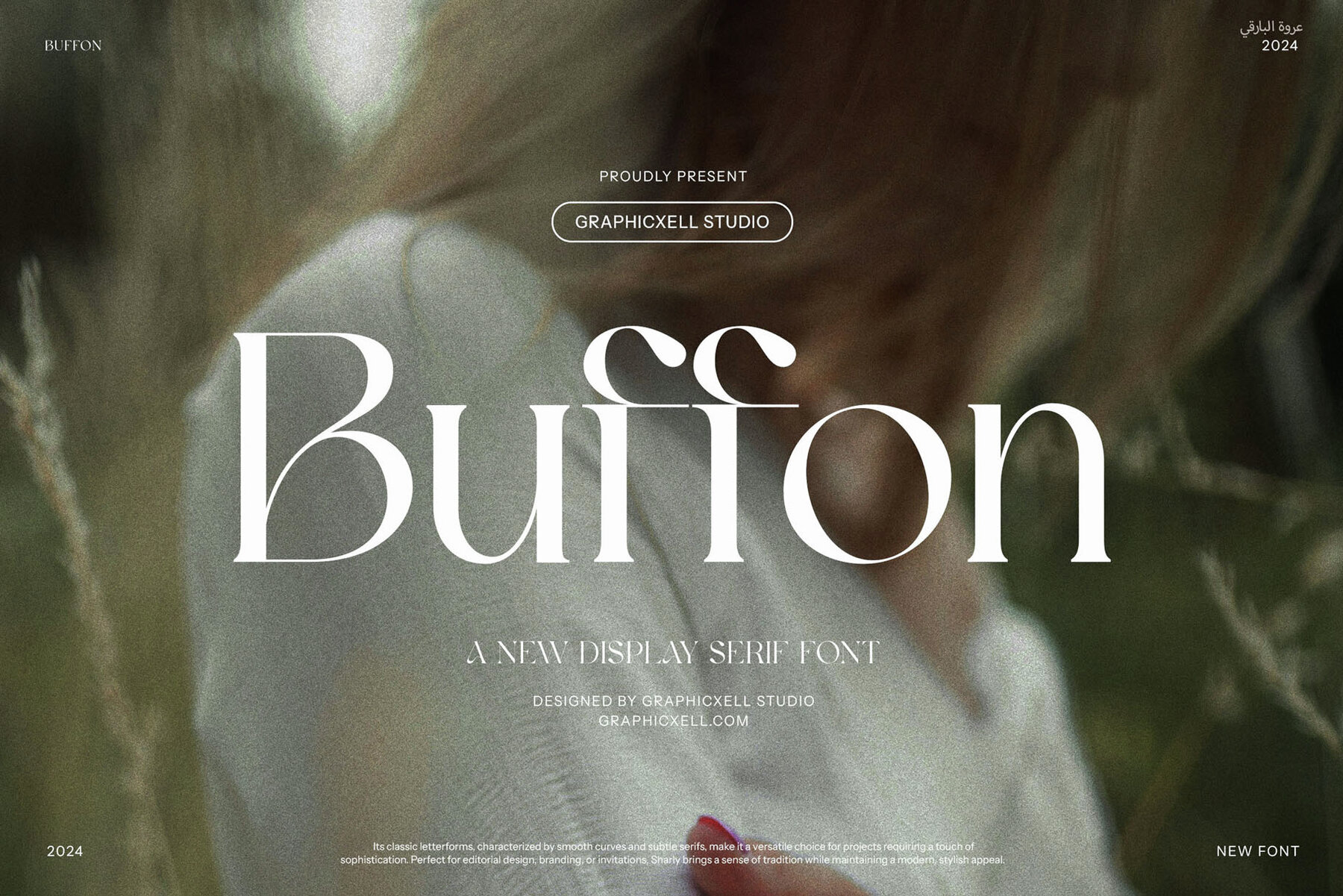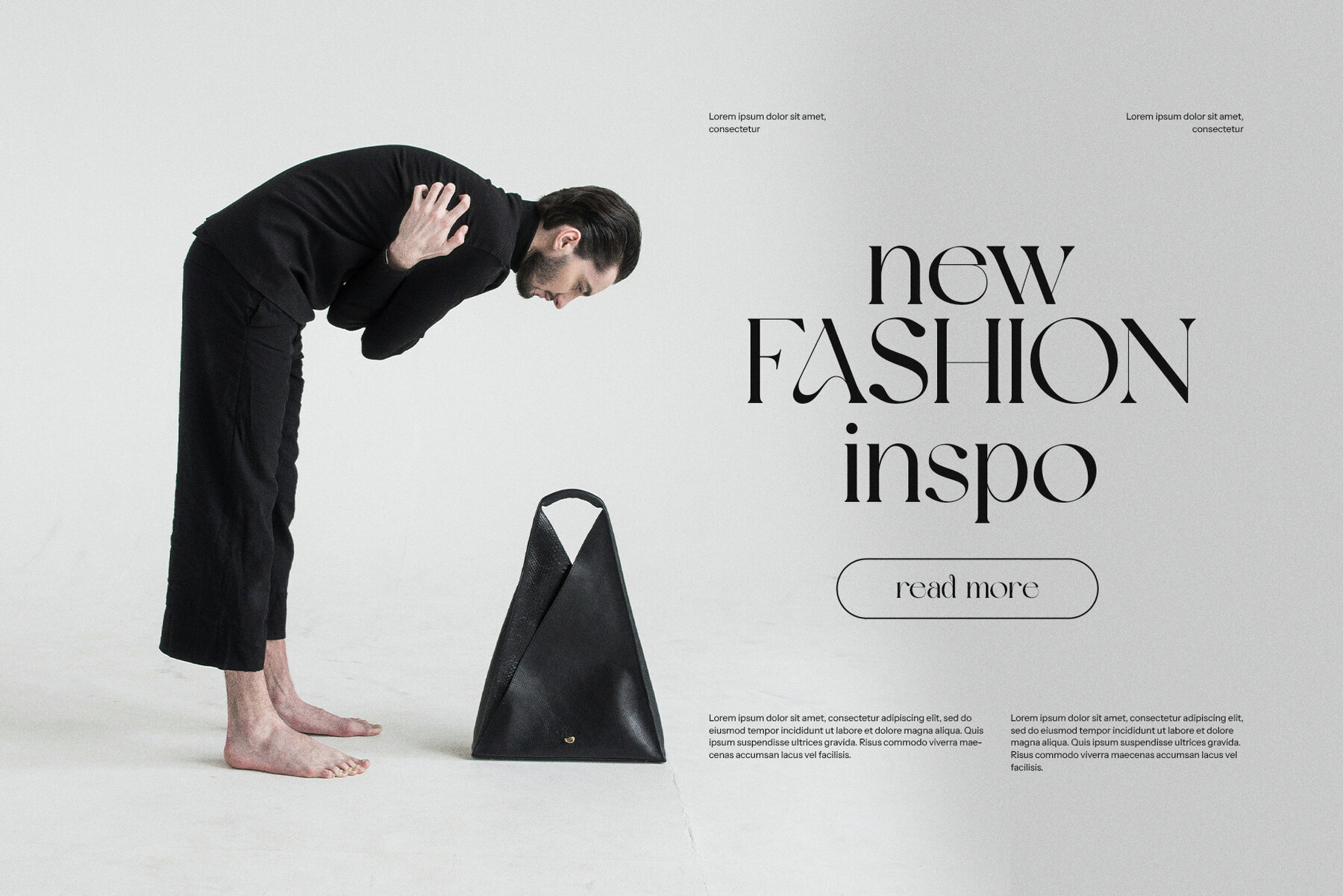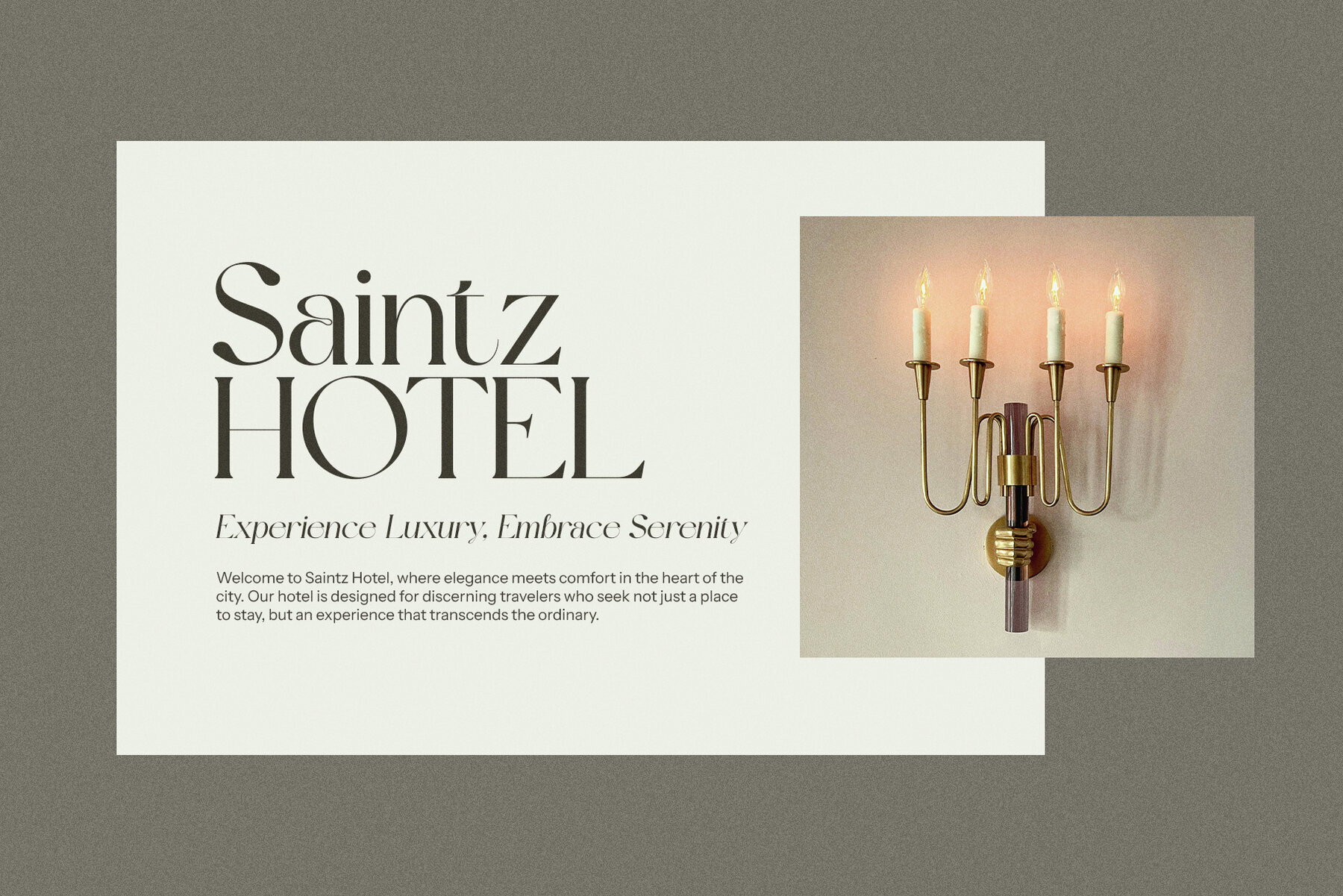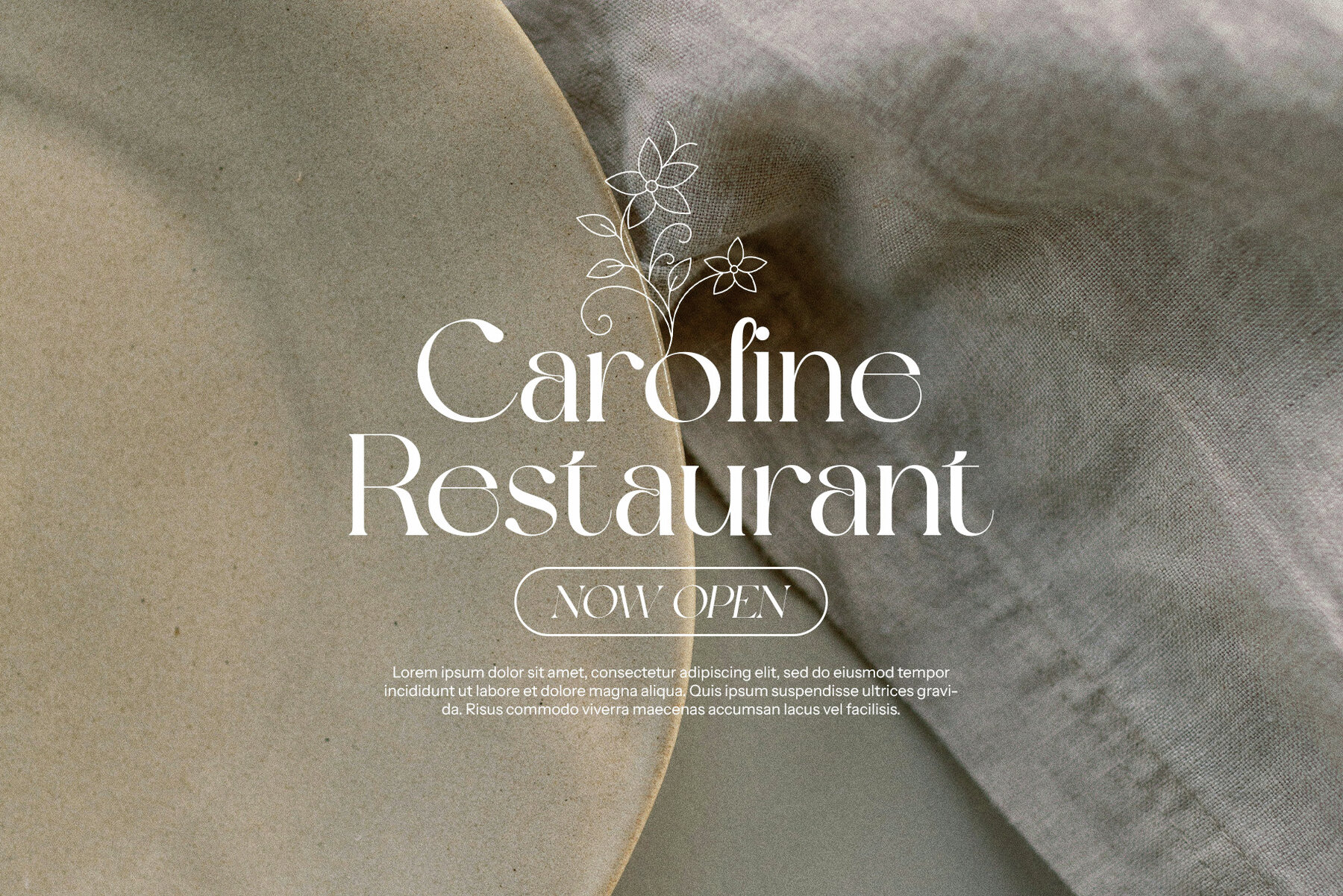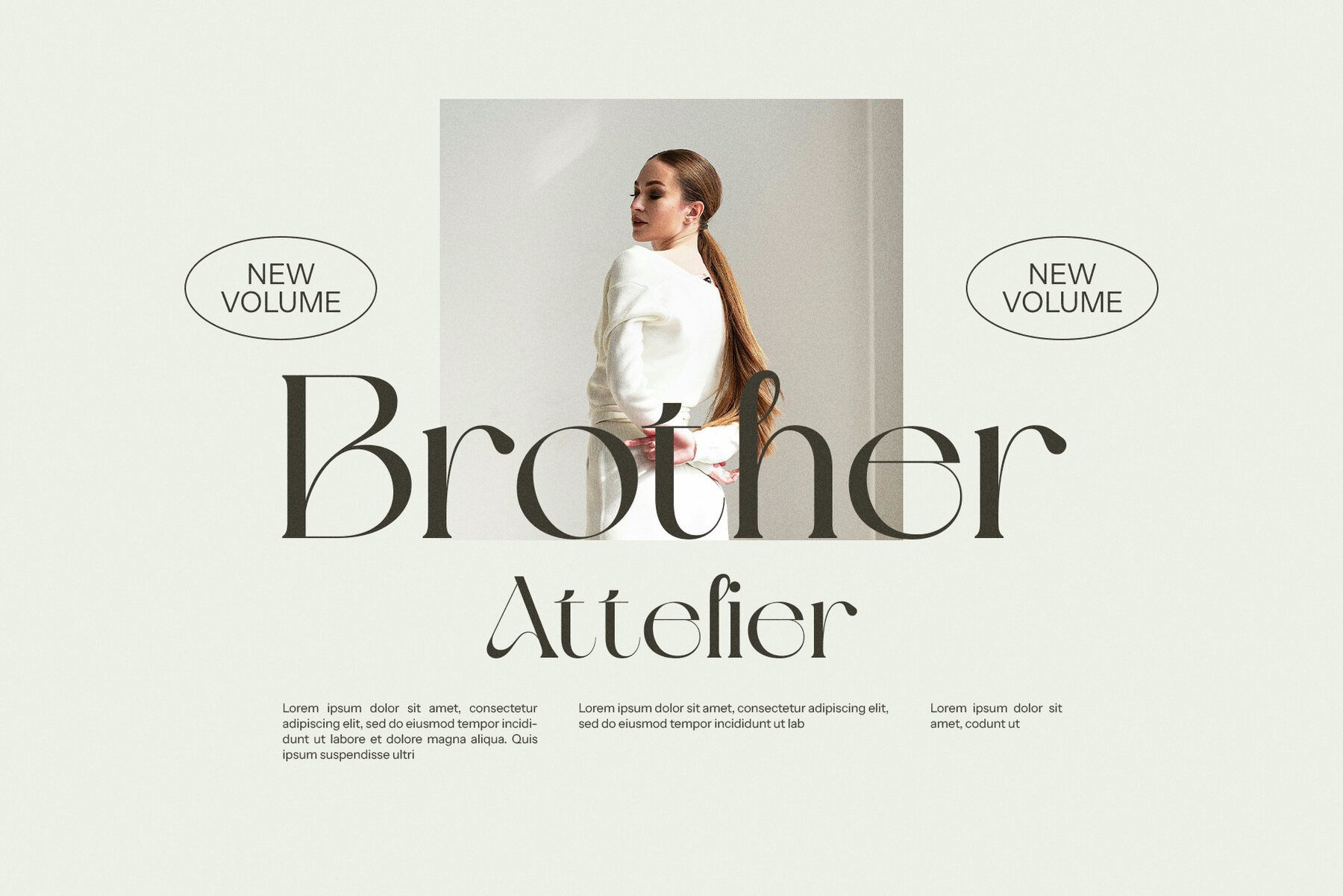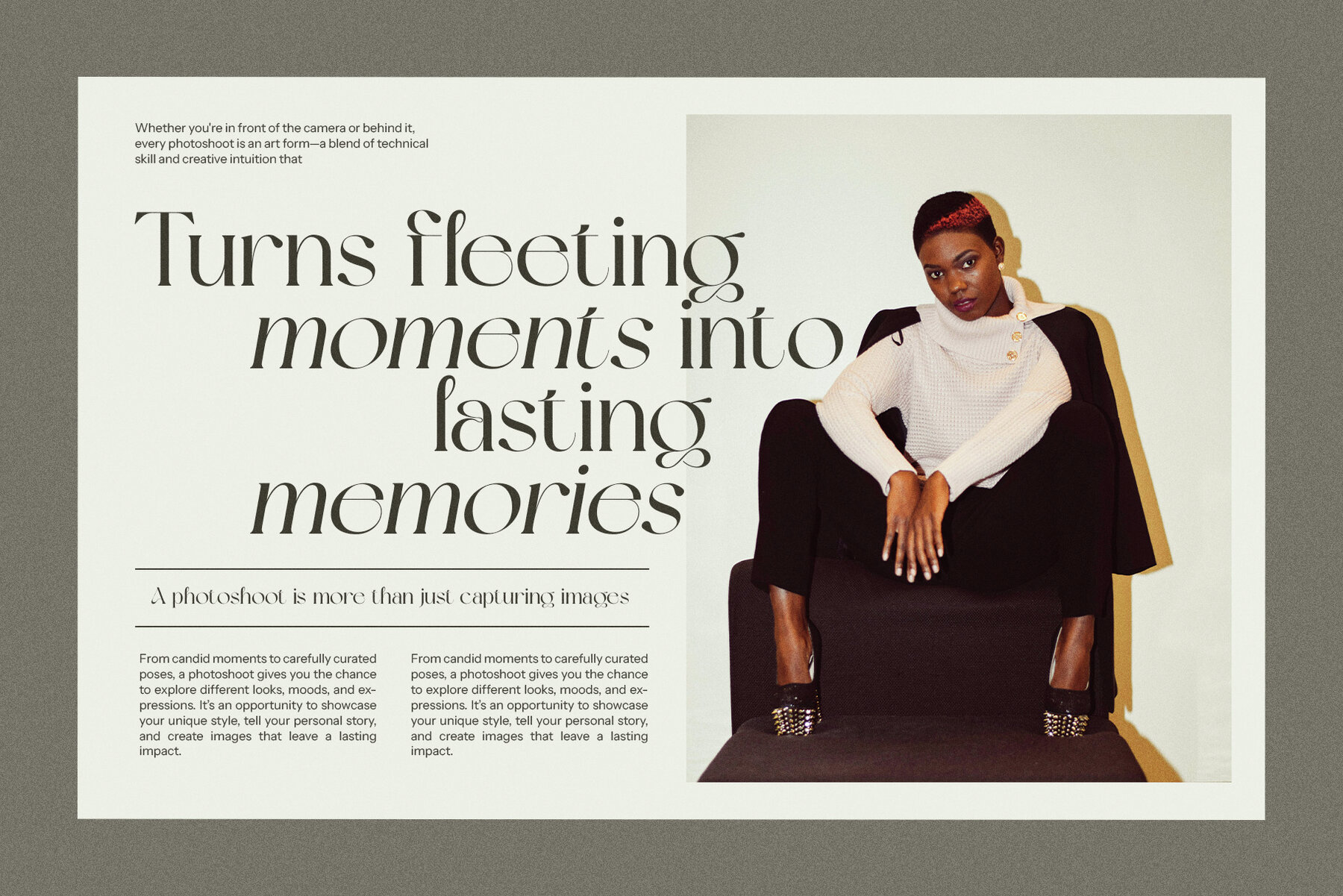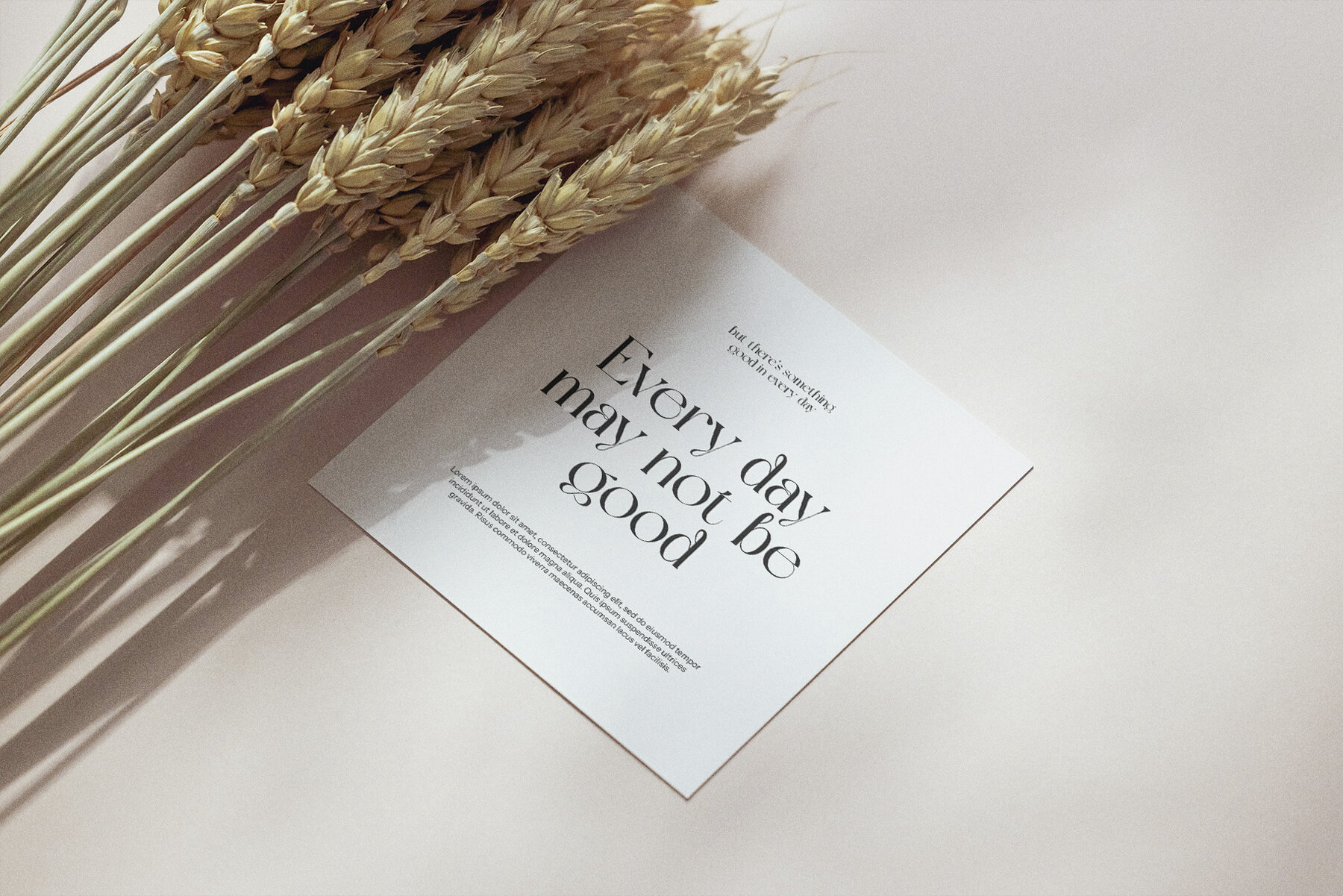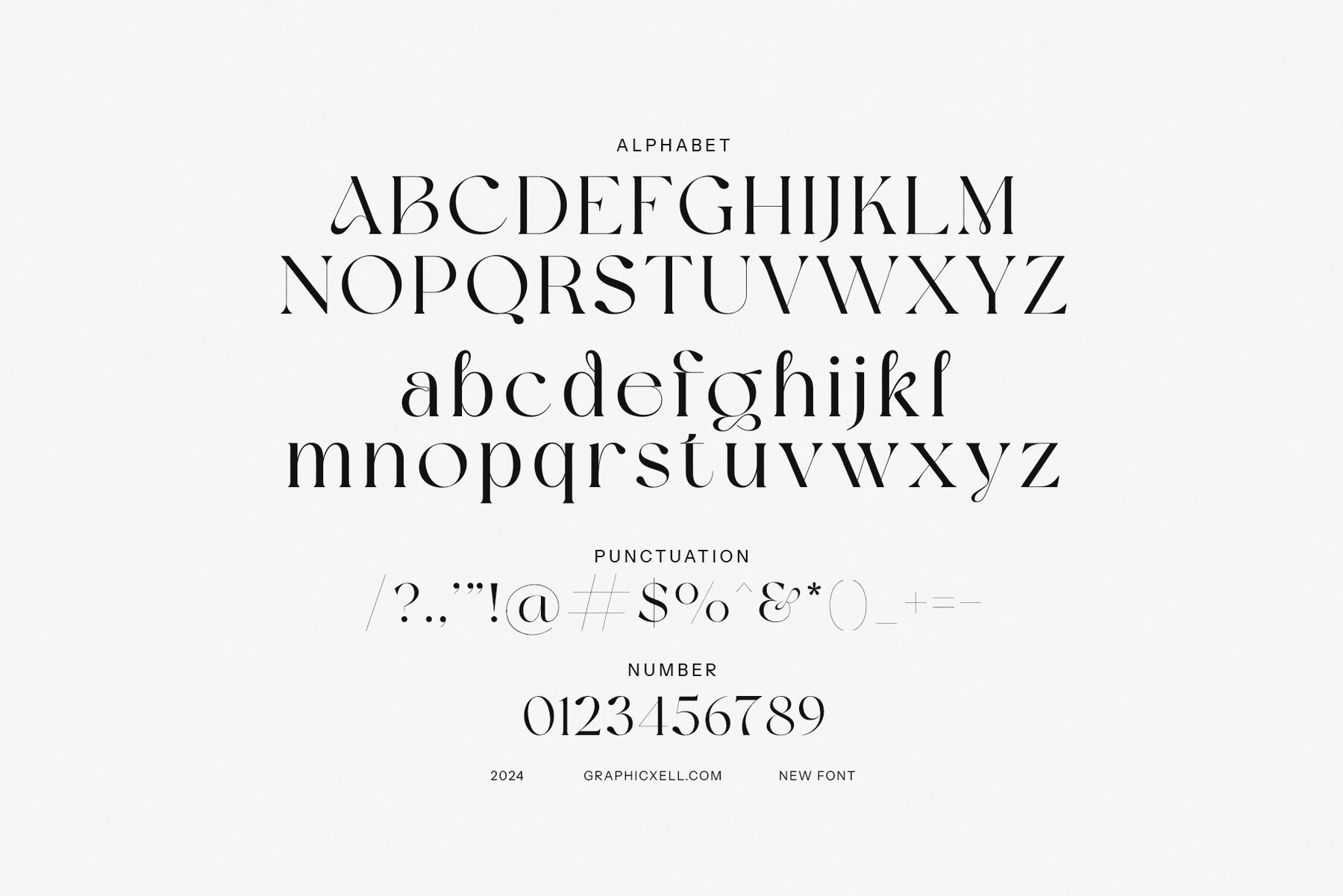
Buffon Font
Buffon
Buffon Modern Serif Font offers a distinguished merge of vintage elegance and modern flair, characterized by its bold, yet refined letterforms. This font's design embodies timeless sophistication through its impeccably crafted serifs, striking the ideal balance between classic and contemporary styles. Buffon's unique geometric serifs and graceful curves provide both clarity and style, making it highly versatile. It's well-suited for headlines and logos, where its distinctiveness can truly shine without overpowering the design context.
Ideal for high-end branding, invitations with a touch of sophistication, and editorial layouts, Buffon brings prestige and modernity to your projects. Its adaptability across print and digital platforms allows designers to enhance magazines, advertisements, and product packaging with an added layer of elegance. Buffon is not just a typeface; it's a blend of heritage and bold innovation, making it a fitting choice for designs that need to capture both tradition and a fresh, contemporary perspective. With Buffon, your work remains memorable and timeless, resonating with a seamless blend of past and present design aesthetics.